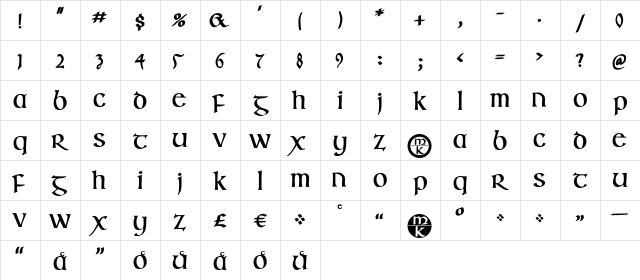
IrishUncialfabeta-Bold Regular Font Preview
IrishUncialfabeta-Bold Regular
Design Context for IrishUncialfabeta-Bold Typeface
IrishUncialfabeta-Bold is a composed and adaptable typeface that performs quietly and consistently across a wide range of design contexts. The heavy weight commands attention and anchors typographic hierarchies.
Pro Tip: Use IrishUncialfabeta-Bold in both headline and body roles to test its range before committing to a single application.